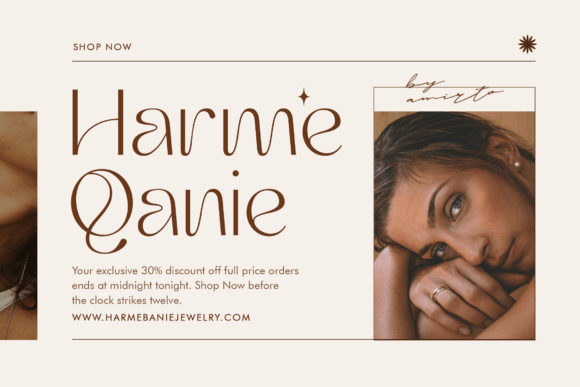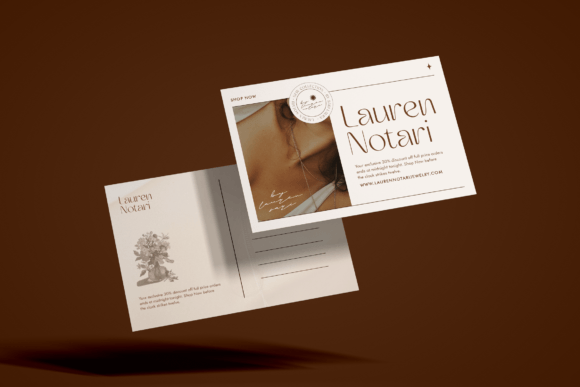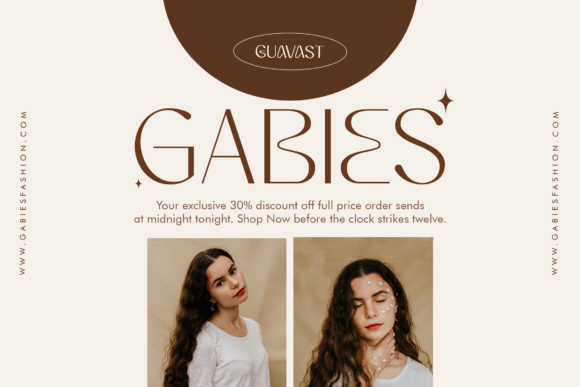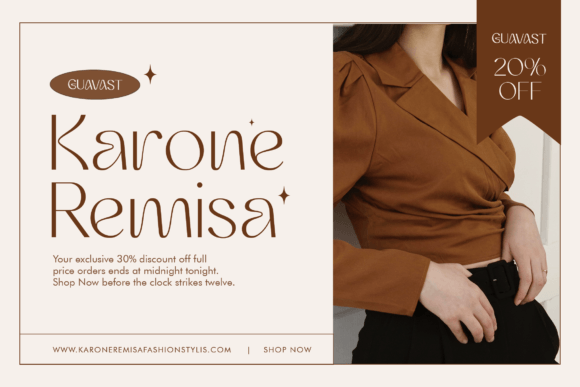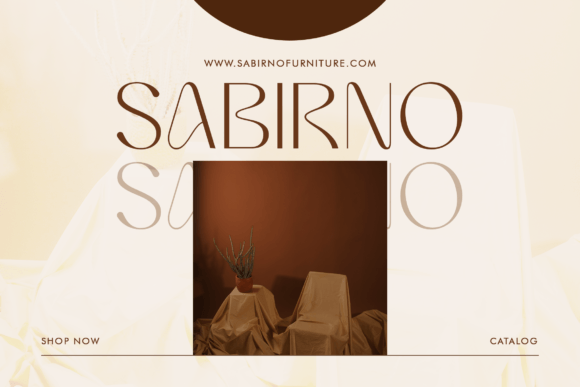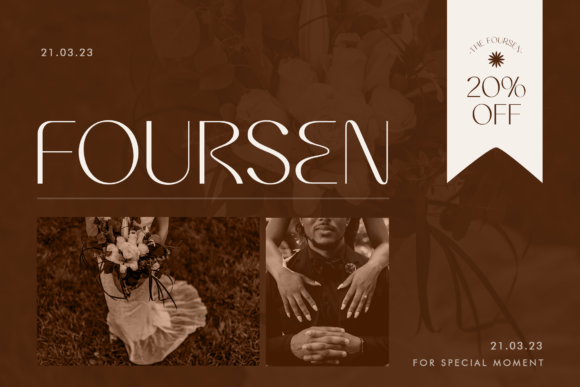
Introducing Guavast Font: Elevate Your Designs with Elegance and Playfulness
In the world of typography, fonts play a crucial role in bringing creativity and life to designs. Among the myriad of fonts available, Guavast stands out as a unique and captivating choice for designers and crafters alike. This modern style font combines the best of both worlds by blending regular and stylized letters, resulting in a beautiful, elegant, and versatile typeface.
The Unique Charm of Guavast Font
Guavast is not just another font; it’s a masterpiece crafted with pinpoint accuracy, boasting beautiful curves that add a touch of sophistication to any design. Its distinctive style makes it perfect for projects that demand a bit of flair and personality. Whether you’re working on a cartoon, a playful branding project, designing logos, creating greeting cards, or crafting title packaging, Guavast is the ideal choice.
Key Features of Guavast Font
- Modern Style: Guavast embodies a modern aesthetic that is both fresh and current, making it suitable for contemporary designs.
- Elegant and Beautiful Curves: The font’s design is characterized by its elegant curves, which add a level of sophistication and grace to any text.
- Mix of Regular and Stylized Letters: This unique blend allows for a dynamic and interesting text appearance, perfect for catching the eye.
- Versatility: Guavast can be used across a variety of projects, from playful and creative endeavors to more formal and elegant designs.
Applications of Guavast Font
The versatility of Guavast makes it an excellent choice for a wide range of applications. Here are some of the areas where Guavast truly shines:
- Cartoon and Playful Designs: Add a touch of whimsy and fun to your cartoons and playful designs with Guavast’s unique charm.
- Branding and Logos: Create memorable and impactful brand identities and logos with this distinctive font.
- Greeting Cards: Elevate your greeting cards with a personal touch of elegance and playfulness.
- Title Packaging: Make your title packaging stand out on shelves with Guavast’s modern and stylish appeal.
Why Choose Guavast Font?
In a sea of fonts, Guavast offers several advantages that make it a preferred choice for designers and crafters:
- Uniqueness: Stand out from the crowd with a font that is both unique and memorable.
- Ease of Use: Guavast is designed to be user-friendly, making it easy to incorporate into various design projects.
- High Versatility: Its adaptability across different design projects makes it a valuable addition to any designer’s toolkit.
- Aesthetic Appeal: The font’s modern style and elegant curves ensure that your designs will have a lasting impact.
Guavast Font is a remarkable addition to the world of typography, offering a perfect blend of modern style, elegance, and playfulness. Its unique design, versatility, and aesthetic appeal make it an excellent choice for designers and crafters looking to elevate their projects. Whether you’re aiming for a playful vibe or an elegant look, Guavast is sure to bring your designs to life. Explore the possibilities with Guavast Font today and discover how it can transform your creative endeavors into masterpieces.